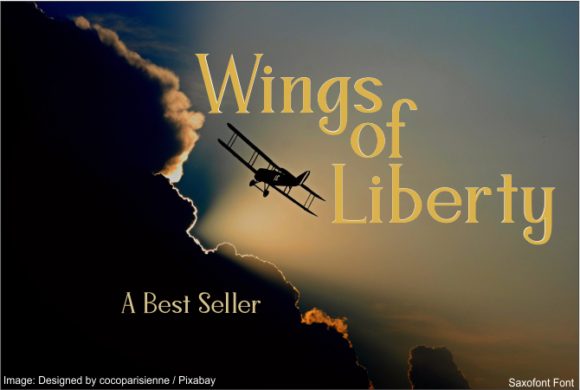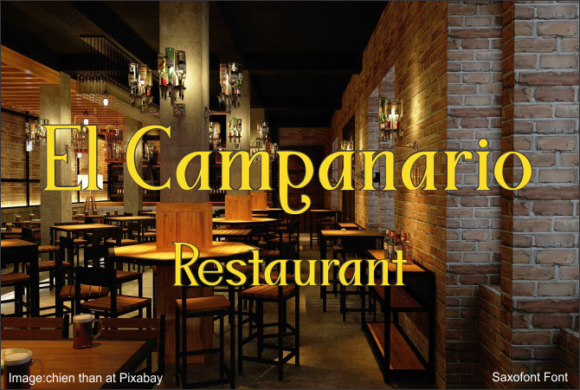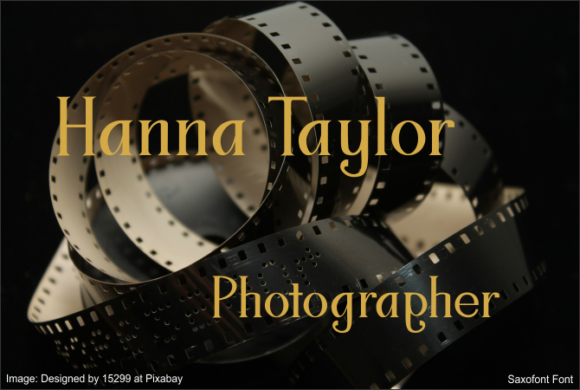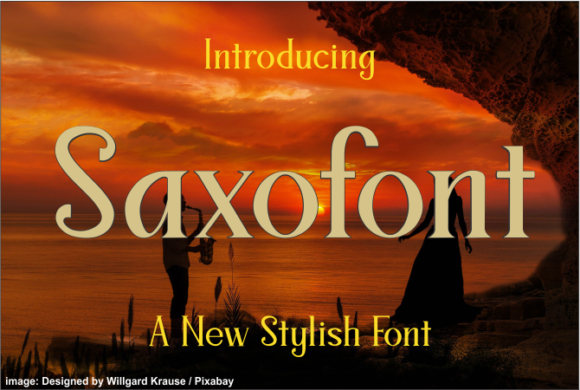
Introduction to Saxofont Font
Saxofont is a stylish and assertive serif font.
Masterfully designed to become a true favorite, this font has the potential to bring each of your creative ideas to the highest level .
Saxofont Font offers exceptional quality and versatility, making it a valuable addition to your design toolkit. Whether you’re creating for personal projects or commercial use, Saxofont Font delivers professional results.